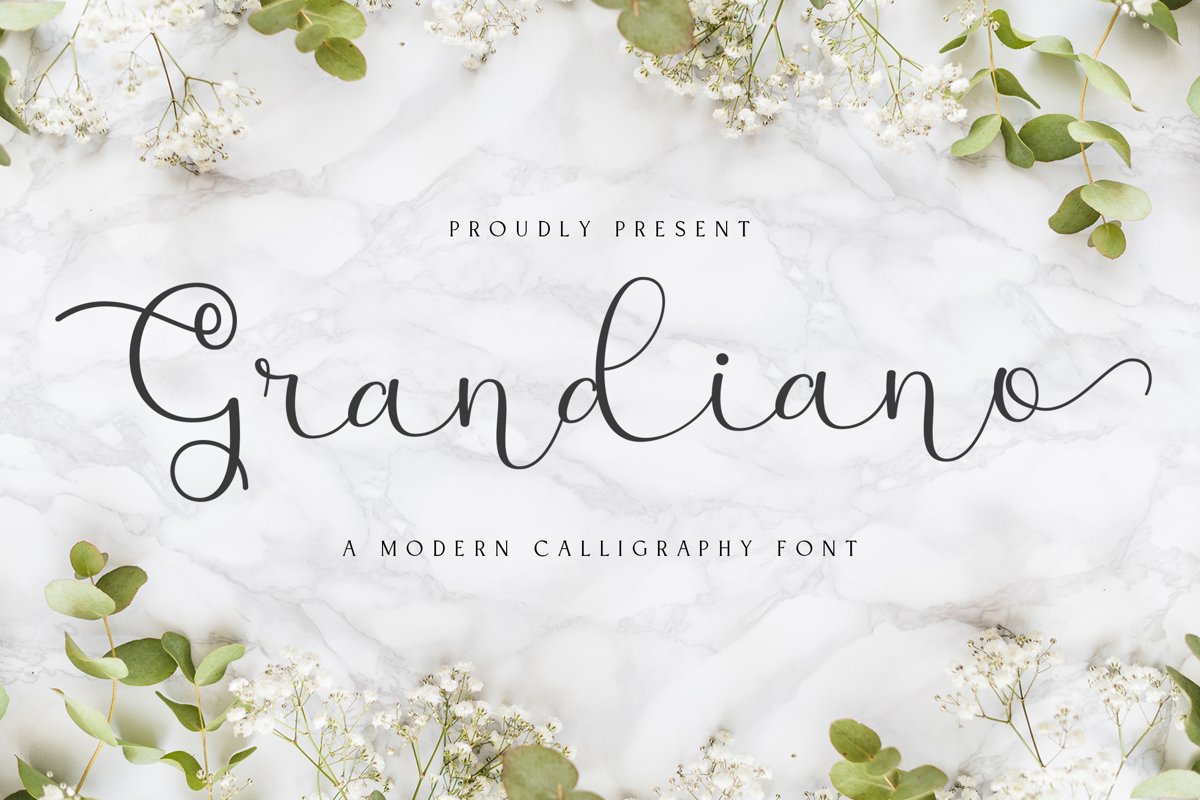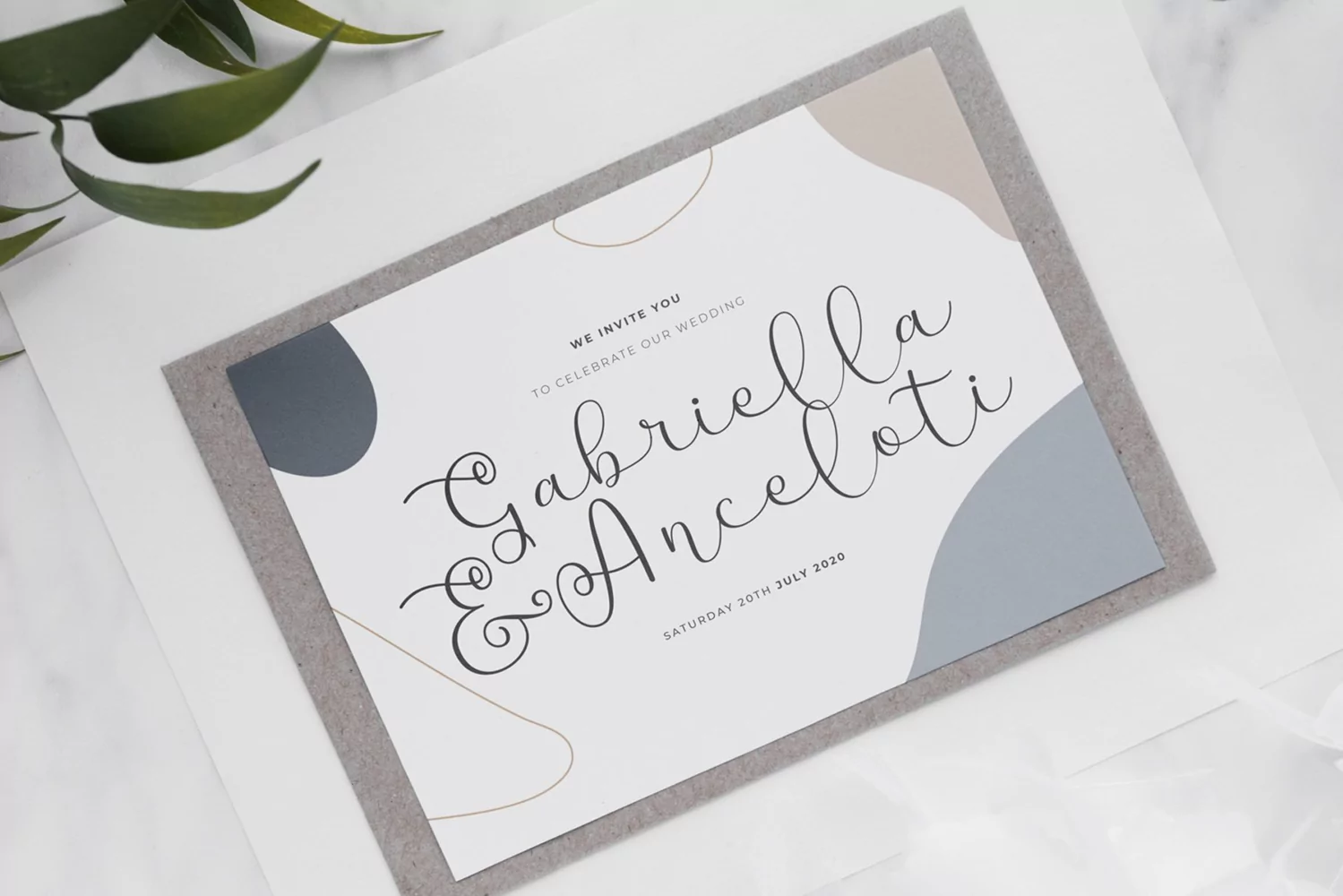
Grandiano is a modern calligraphy typeface. Perfect for display, quotes, branding, logo, logotype, merchandise, packaging, poster, business card, florist needs, wedding needs, crafting needs, and many more